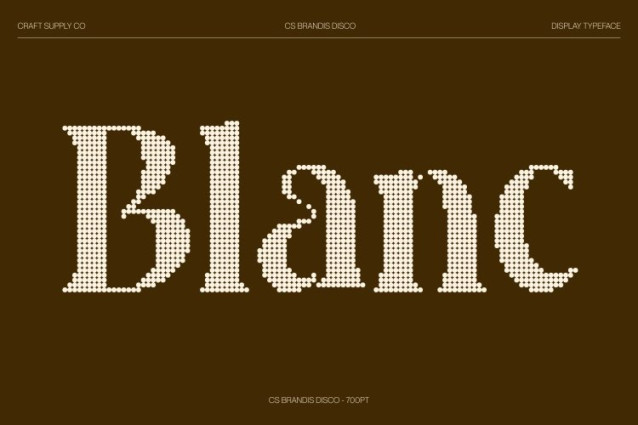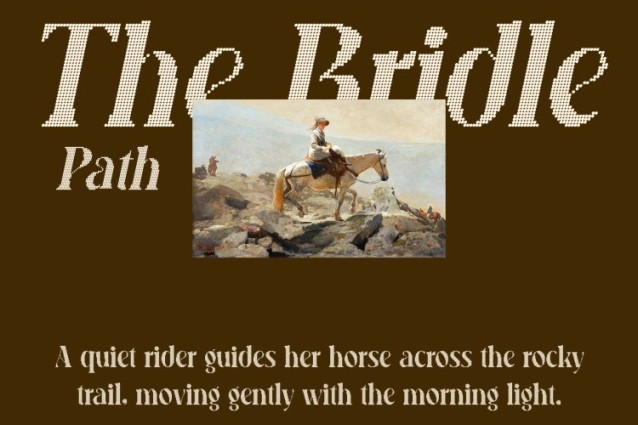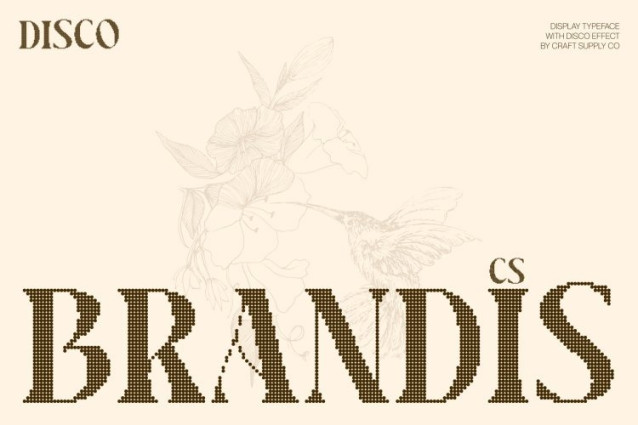
CS Brandis Disco Font This is a modern serif font crafted to express elegance through timeless proportions and contemporary refinement now elevated with a subtle disco attitude. Its refined letterforms balance classic serif foundations with modern sophistication, creating a typeface that feels confident, stylish, and effortlessly luxurious under the spotlight.
High Contrast Strokes with Playful Disco Rhythm
The defining feature of this font lies in its dramatic high-contrast strokes, which bring bold visual rhythm and expressive movement to every letter. Playful modern shapes enhance this contrast, adding charm and personality inspired by the energy of fashion runways and glowing dance floors. The result is typography that feels glamorous, dynamic, and visually captivating without losing its polished refinement.
Contemporary Style with Sophisticated Night-Life Appeal
Blending contemporary aesthetics with elegant detailing, delivers a look that is both fashionable and timeless. Its sharp transitions and flowing curves create a lively, confident rhythm perfect for designs that aim to feel modern, expressive, and filled with stylish after-dark energy.
Perfect for Fashion, Editorial, and Glamorous Branding
Designed for fashion branding, posters, editorial layouts, and luxury visuals, this font shines in headlines, titles, and statement typography. This font enhances magazine spreads, fashion campaigns, and premium branding with a high-contrast elegance that feels playful, glamorous, and unmistakably sophisticated